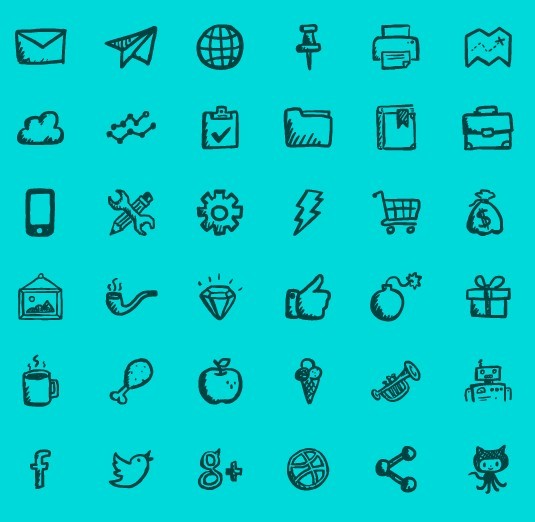
Jolly Icons Free Font from handdrawngoods.com, including 36 hand-drawn icons in font format. You’ll get TTF, SVG, EOT, WOFF files with a @font-face and a CSS stylesheet with font classes, ready to be used on a web page, and also a demo HTML file with all font glyphs and mappings.